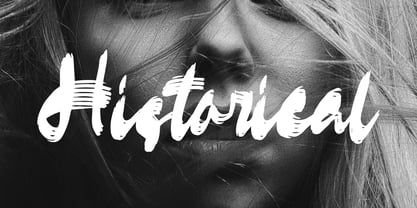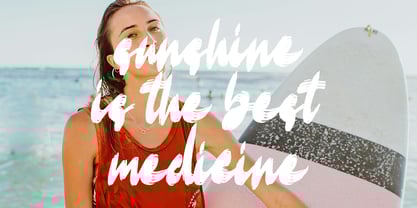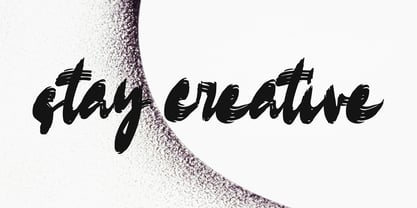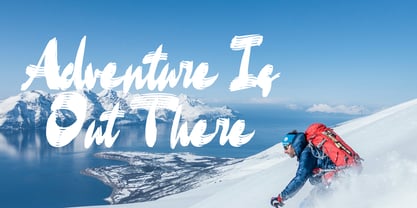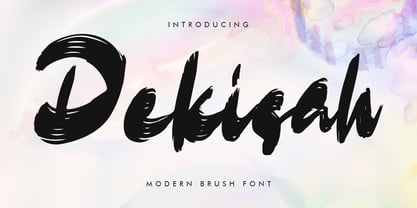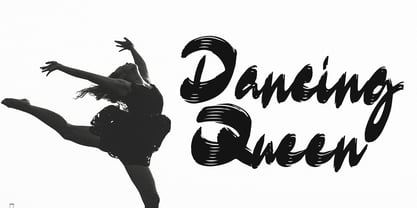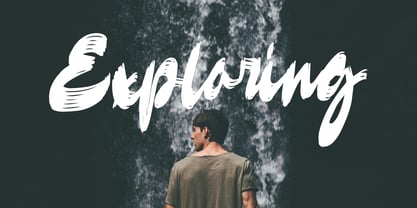
Dekisah
by Mega Type
The Dekisah Font Family was designed by M Akmal and published by Mega Type. Dekisah contains 1 styles. More about this family
The Dekisah font is a bold and expressive modern brush font that captures the energy and spontaneity of hand-painted lettering. Its thick strokes and dynamic brush textures give it a raw, edgy look, while maintaining clarity and visual impact. The letterforms are slightly irregular and organic, adding a natural flow and creative personality that makes the font feel alive and vibrant. The dry-brush texture enhances its artistic appeal, making it a powerful visual tool for catching attention.
This font is especially suitable for creative and impactful projects such as poster designs, streetwear branding, album covers, YouTube thumbnails, social media ads, and event promotions. It's perfect for any layout that calls for an artistic, energetic, and modern touch—where the typography becomes part of the visual statement itself. Dekisah brings attitude and style to bold headlines or expressive logotypes.
Designers: M Akmal
Foundry: Mega Type